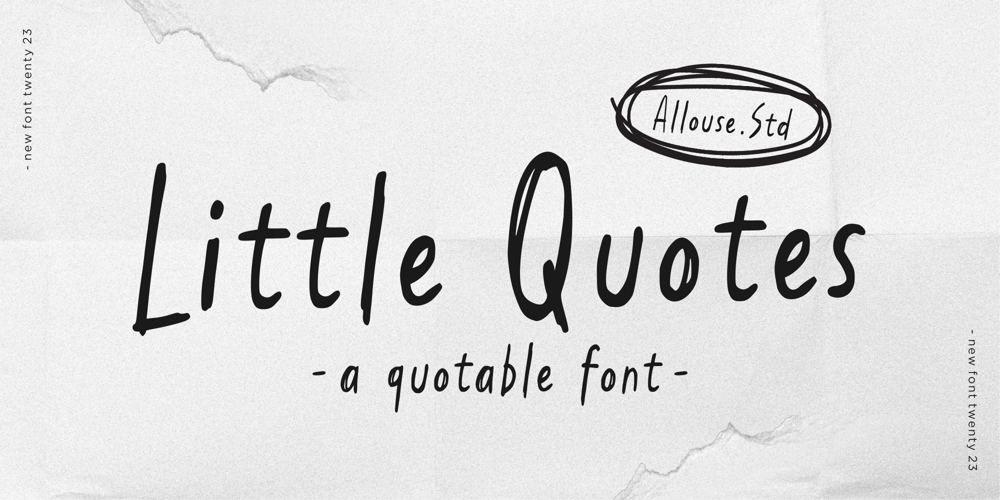
Little Quotes Font Family was designed by Fachrizal Yusuf and published by Allouse Studio. Little Quotes contains 1 styles and family package options. Proudly Present, Little Quotes A Quotable Messy FontLittle Quotes is perfect for product packaging, branding project, megazine, social media, wedding, or just used to express words above the background.Little Quotes also come with Multi-Lingual Support.Enjoy the font, feel free to comment or feedback, send me PM or email. Thank You!